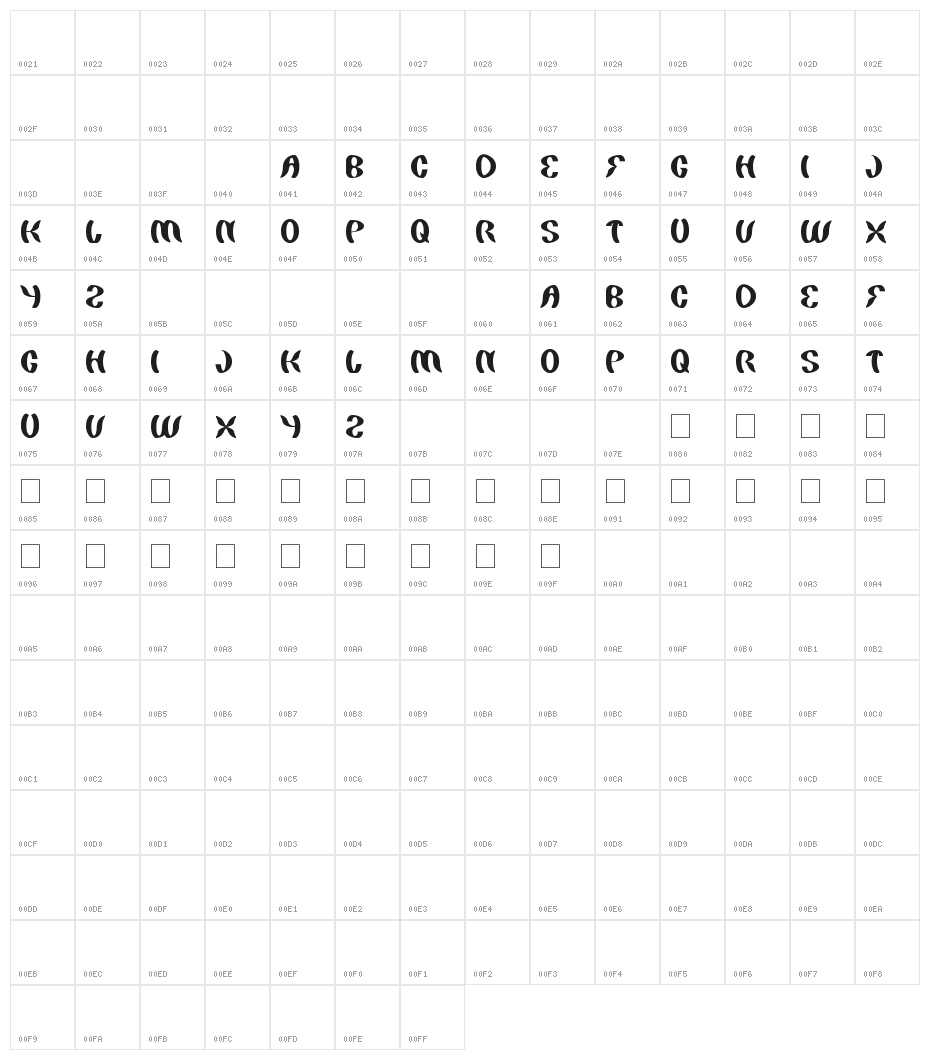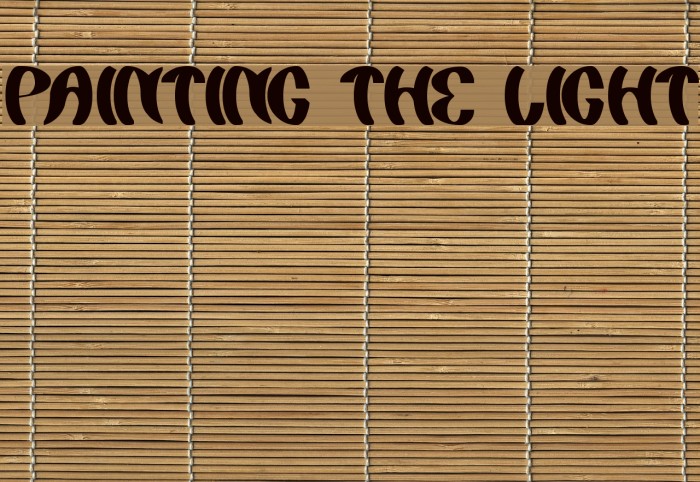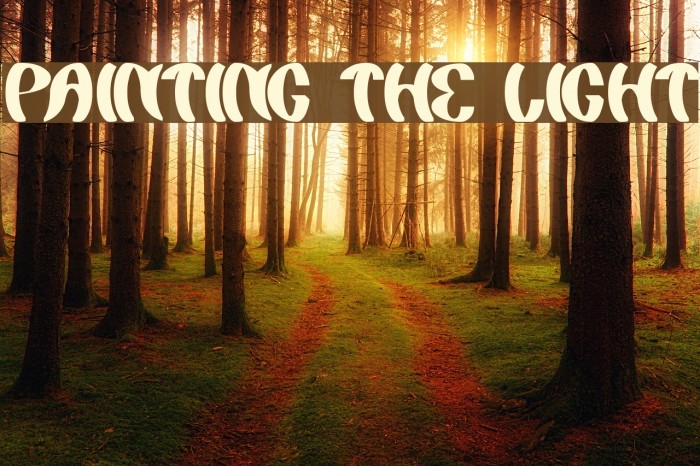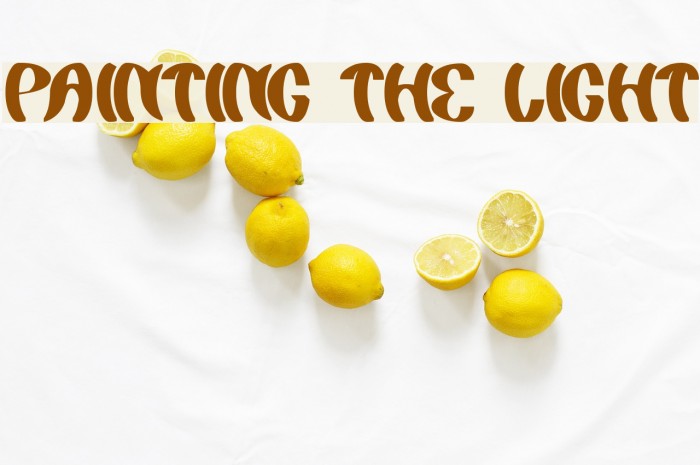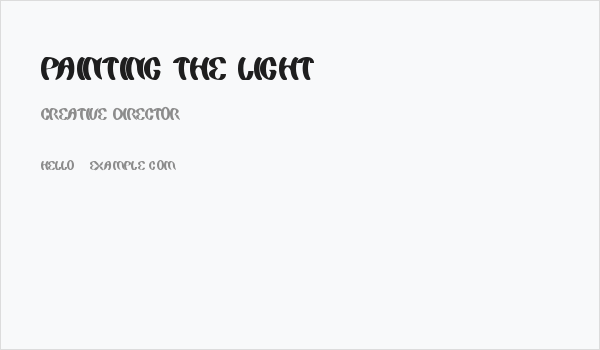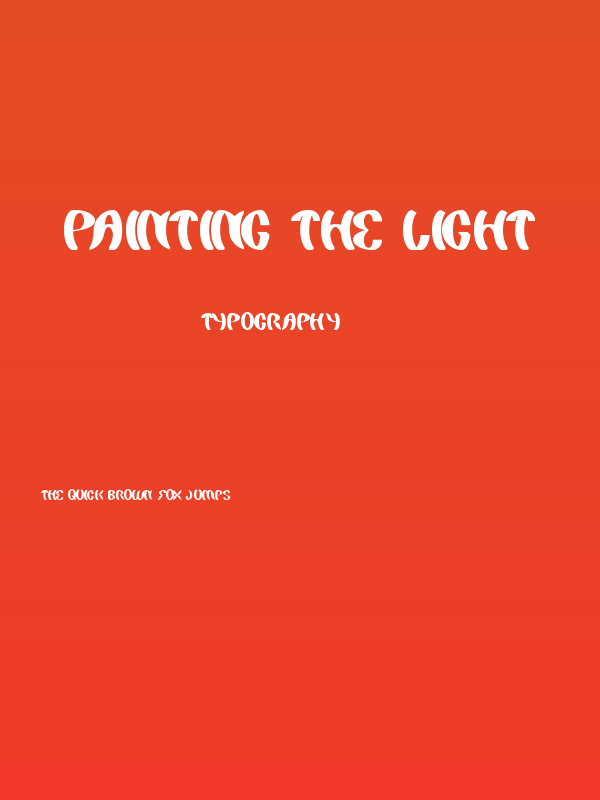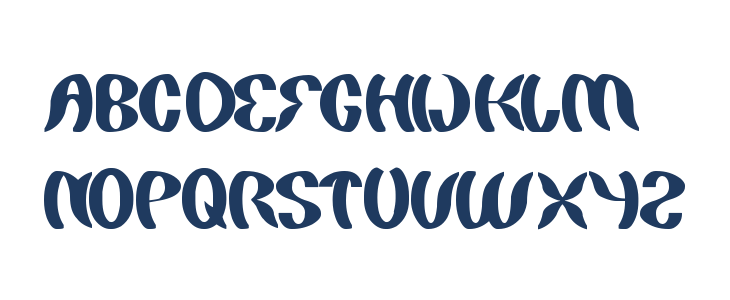
painting the light Font
painting the light Description
This font features a bold and decorative style with a unique, artistic flair. Each character is crafted with a sense of movement and flow, reminiscent of brush strokes or calligraphy. The letters have a distinct, curved design that adds a sense of dynamism and creativity. The uppercase and lowercase letters maintain a consistent style, with the uppercase being slightly more pronounced. The font's boldness makes it stand out, while the artistic curves give it a playful and modern touch. This font is ideal for projects that require a strong visual impact and a touch of elegance.
| Overall Style | Modern, Artistic |
| Proposed Projects | Ideal for branding, posters, artistic projects, and creative headlines. |